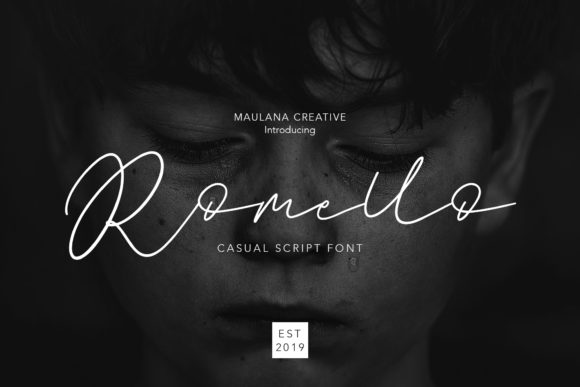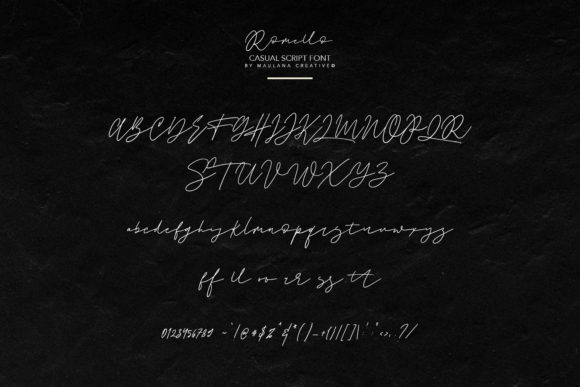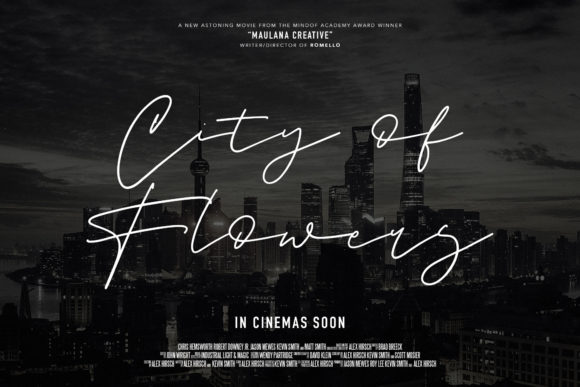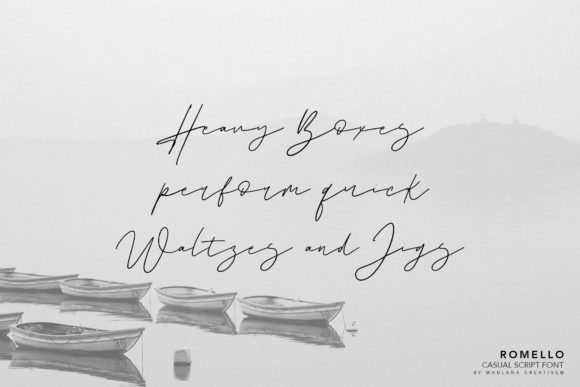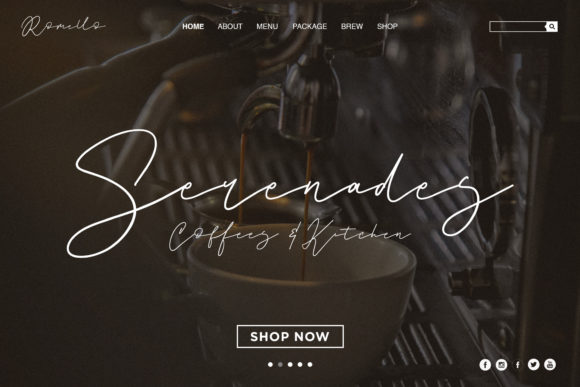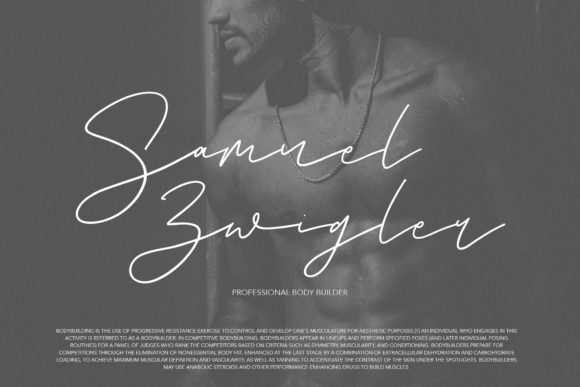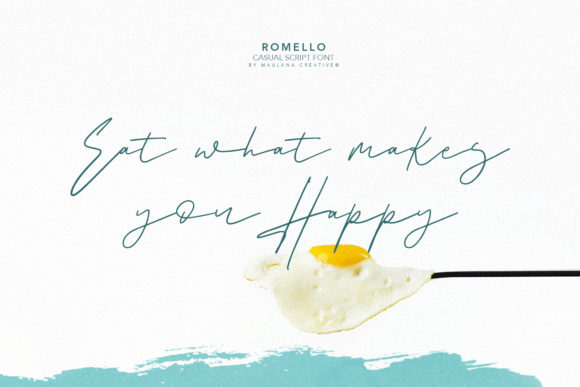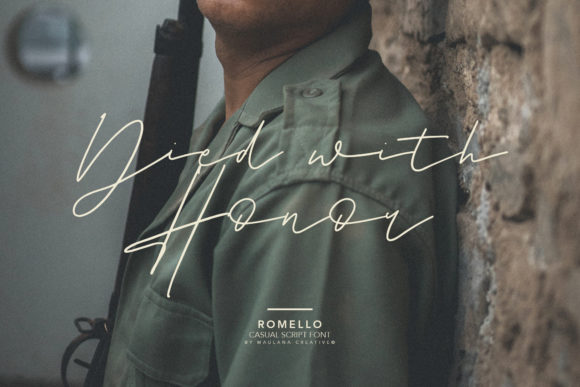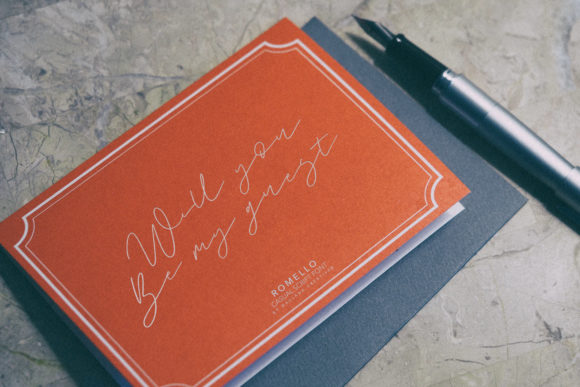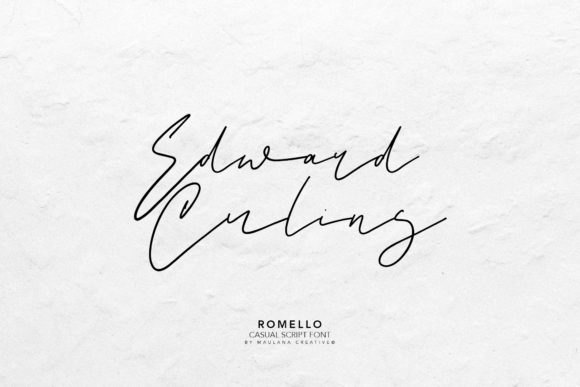
HomeScript FontsRomello Font Script Fonts Romello Font FacebookXPinterestWhatsApp Romello Font Poster 2 Romello Font Poster 3 Romello Font Poster 4 Romello Font Poster 5 Romello Font Poster 6 Romello Font Poster 7 Romello Font Poster 8 Romello Font Poster 9 Romello Font Poster 10 About Romello Font Romello is a lovely script with authentic handcrafted feel. It will add a romantic touch to any crafting project! DOWNLOAD NOW People also explored Kattrina Font Cosmic Furry Font Happy New Year Font Lemon Rolls Font Kids Land Font Looking Glass Script Font Cute Love Font Makenna Font Milk Shake Font 293 0 TagsRomello Font Previous articleHello Alitha FontNext articleHello Fhillya Font LEAVE A REPLY Cancel reply Comment: Please enter your comment! Name:* Please enter your name here Email:* You have entered an incorrect email address! Please enter your email address here Website: Save my name, email, and website in this browser for the next time I comment. Personal Use Free Rasiday Personal Use Free Read more about this font Zojihun Personal Use Free Read more about this font Love Ya Personal Use Free Read more about this font Puisi Adinda Personal Use Free Read more about this font BLOG 5 Fonts That Will Dominate Design Trends in 2026 5 Fonts for 2026 That Will Dominate Design Trends Typography plays a critical role in visual communication, and as we look ahead to 2026, it’s... Where to Buy American Fonts Online in 2024 Free vs Paid Fonts: Why Investing in Premium Fonts Is Worth It Best Fonts for T-Shirt Design – Top 2025 Picks